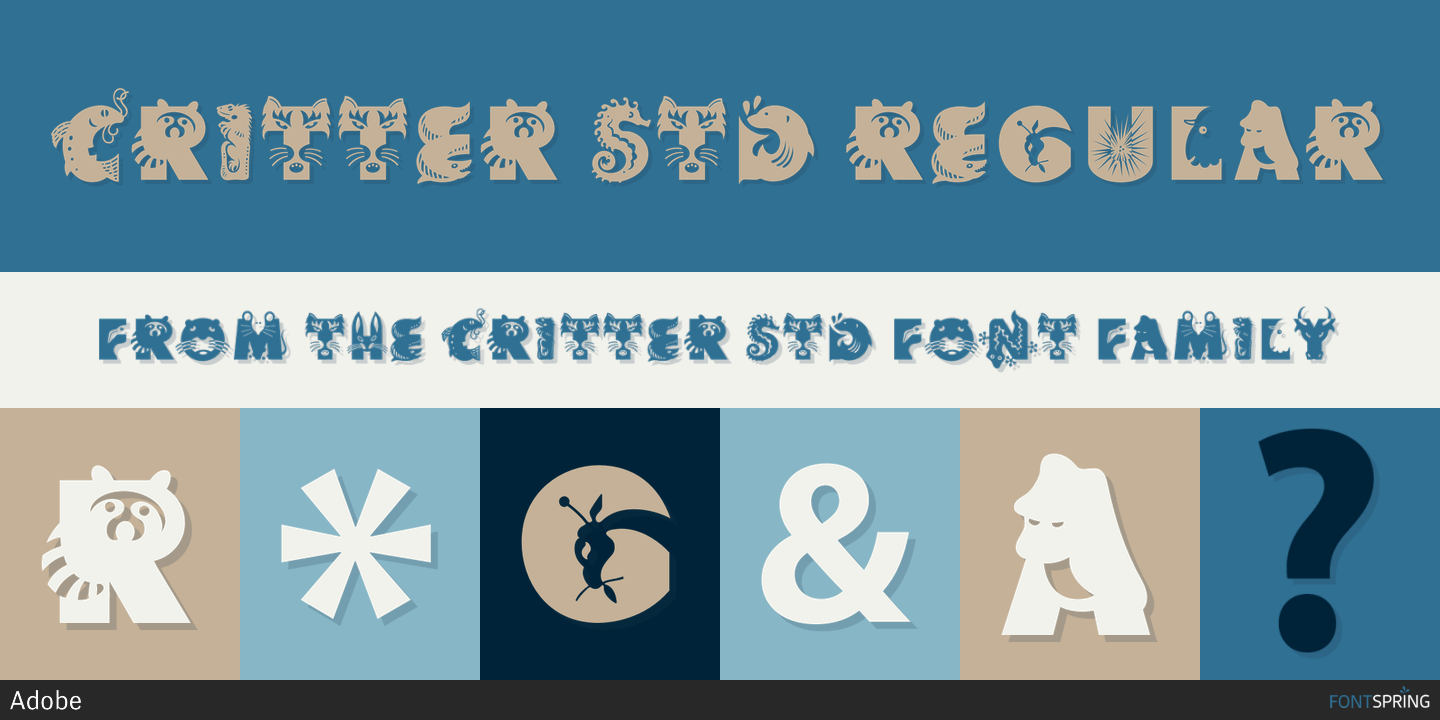
Critter Std is a novelty and kids font published by Adobe.
Originally created by Craig Frazier, San Francisco designer and illustrator, for The Alphabet Critter Playbook, the clever creatures of Critter tell you their names by the letter they represent. A helpful hint: “x” is for xenopus.